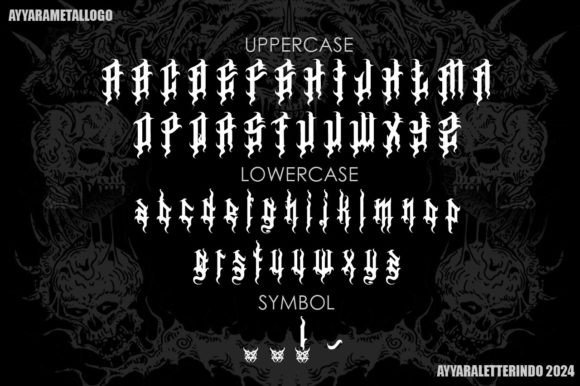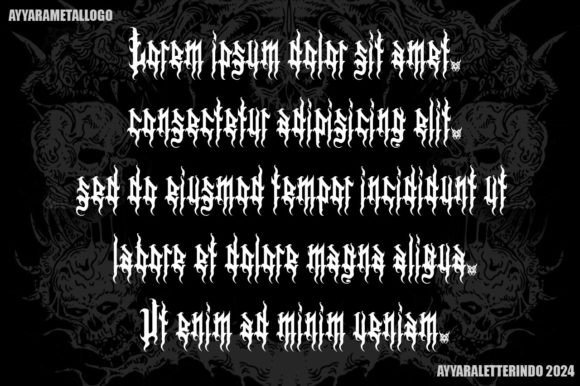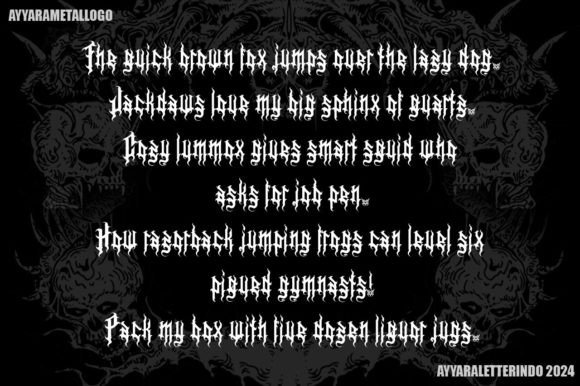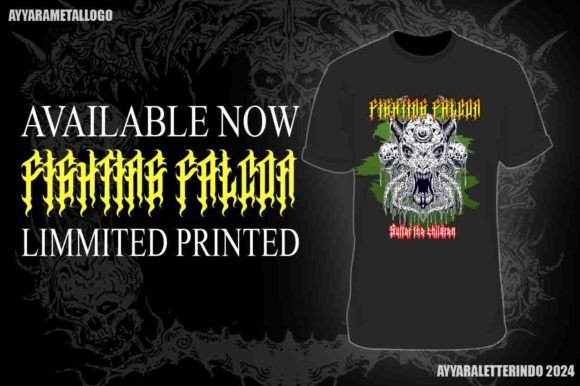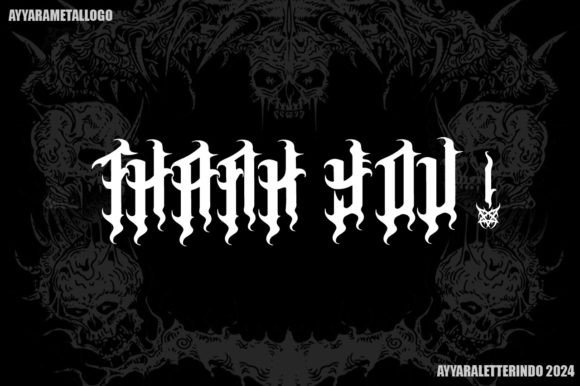
Unleash the Power of Black Chain Font: Elevate Your Metal Band or Brand Logo
Are you a metal band or brand looking for a bold and striking font to represent your identity? Look no further than the Black Chain Font, a metal font designed to make a statement. This unique blackletter font is perfect for creating logos, branding, and metal band names that exude power and intensity. In this article, we’ll explore the features and benefits of Black Chain Font and how it can help you create a killer logo or design.
What is Black Chain Font?
Black Chain Font is a specially crafted metal font that is inspired by the raw energy and edginess of metal music. Its bold, rugged, and industrial design makes it perfect for metal bands, heavy metal enthusiasts, and brands that want to convey a strong and powerful image. The font features thick, chunky lines and a blackletter style that gives it a distinctive and menacing look.
Key Features of Black Chain Font
- Unique Blackletter Design: Black Chain Font boasts a distinctive blackletter design that sets it apart from other fonts. Its bold and rugged lines give it a raw, industrial look that’s perfect for metal bands and brands.
- Metal-Inspired Aesthetic: The font’s metal-inspired aesthetic makes it perfect for metal bands, heavy metal enthusiasts, and brands that want to convey a strong and powerful image.
- Easily Customizable: Black Chain Font is easy to use and customize, making it perfect for designers and crafters who want to create unique logos and designs.
- Instant Logo Creation: With Black Chain Font, you can immediately create your band or brand logo name, saving you time and effort.
Benefits of Using Black Chain Font
- Instant Recognition: Black Chain Font’s bold and striking design ensures instant recognition and makes your brand or band stand out.
- Professional Look: The font’s industrial and metal-inspired aesthetic gives your design a professional and edgy look that’s perfect for metal bands and brands.
- Easy to Read: Despite its bold design, Black Chain Font is easy to read, making it perfect for logos, branding, and metal band names.
- Versatile: Black Chain Font can be used for a variety of design projects, from logos and branding to posters and merchandise.
If you’re a designer or crafter looking to use Black Chain Font in your projects, here are some tips to keep in mind:
- Experiment with Different Sizes: Black Chain Font looks great in large and small sizes, so experiment with different sizes to find the one that works best for your design.
- Combine with Other Fonts: Black Chain Font can be combined with other fonts to create a unique and eye-catching design. Try pairing it with a sans-serif font for a bold and modern look.
- Use it for Merchandise: Black Chain Font is perfect for merchandise such as t-shirts, stickers, and posters. Use it to create bold and eye-catching designs that will stand out.
| Font Name | Black Chain Font |
| Author | ayyaraletterindo |